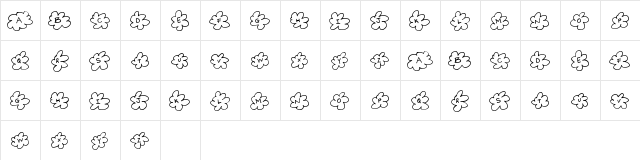
InsideFlower Regular
Design Context for InsideFlower Typeface
InsideFlower is a composed and adaptable typeface that performs quietly and consistently across a wide range of design contexts.
Pro Tip: Pair InsideFlower with a font of contrasting weight or personality to build a more expressive typographic hierarchy.